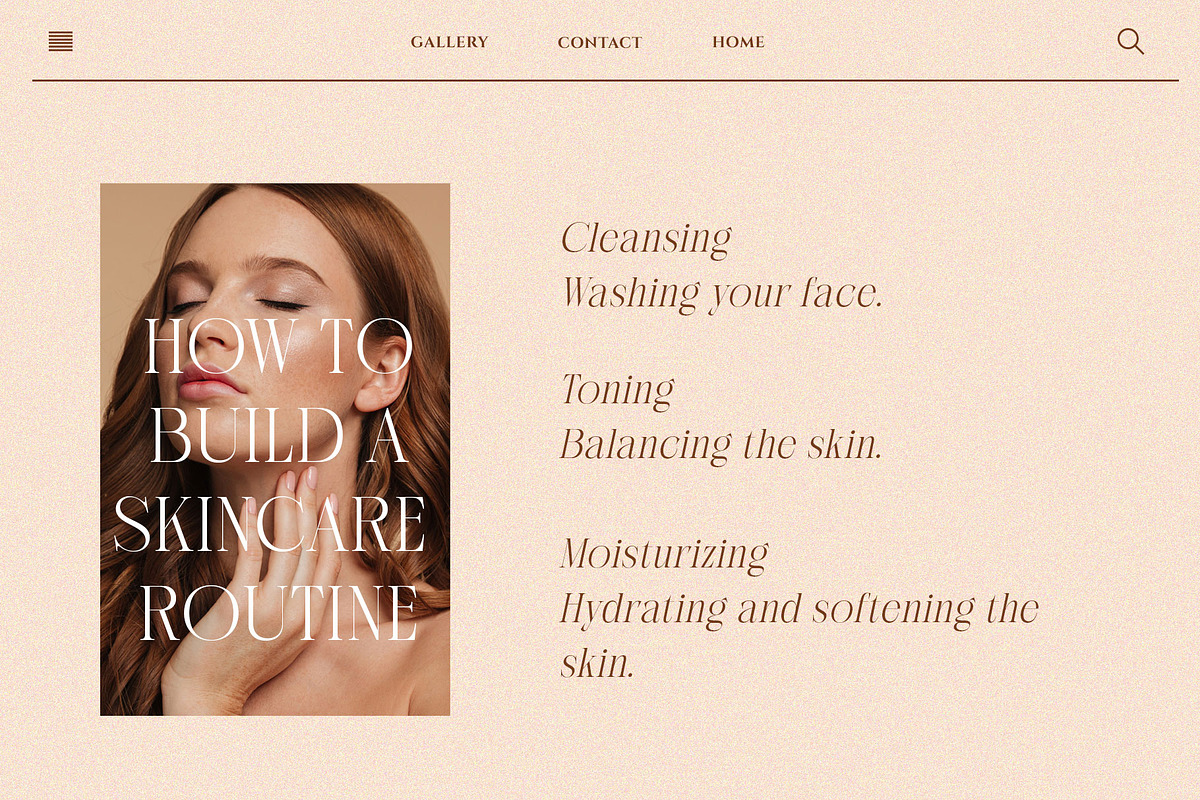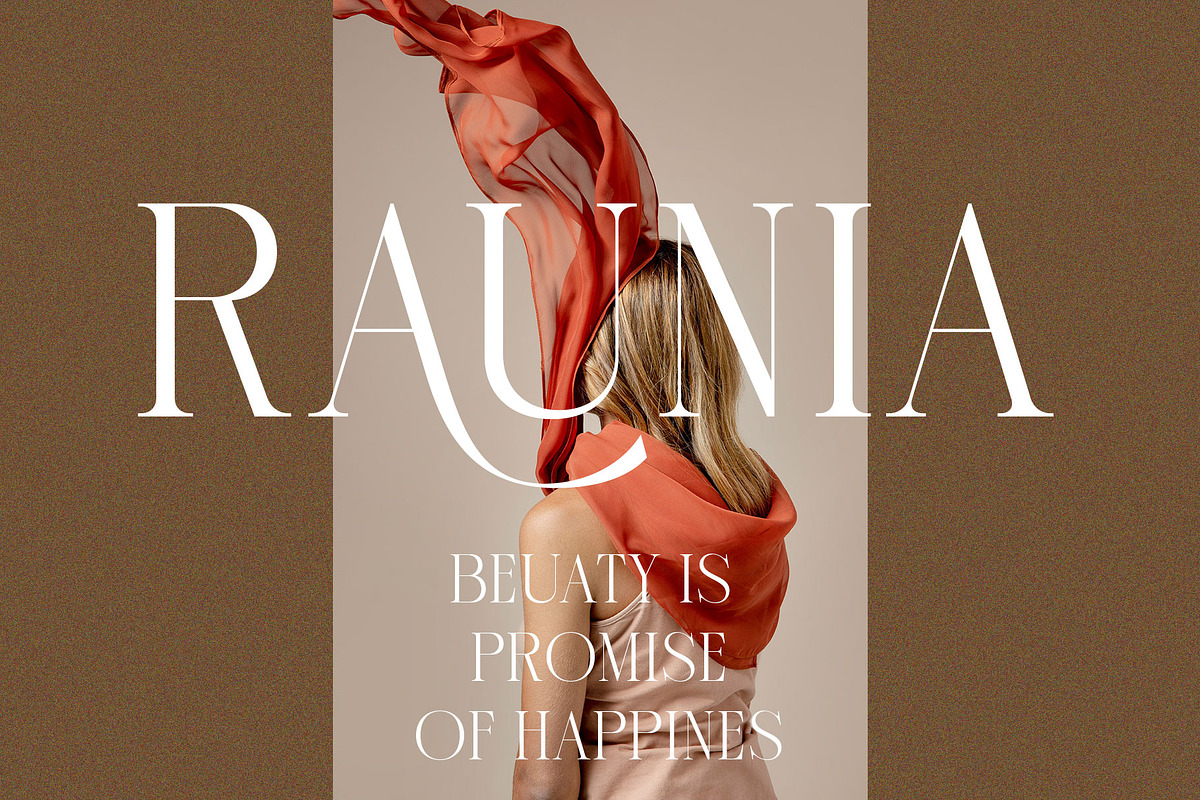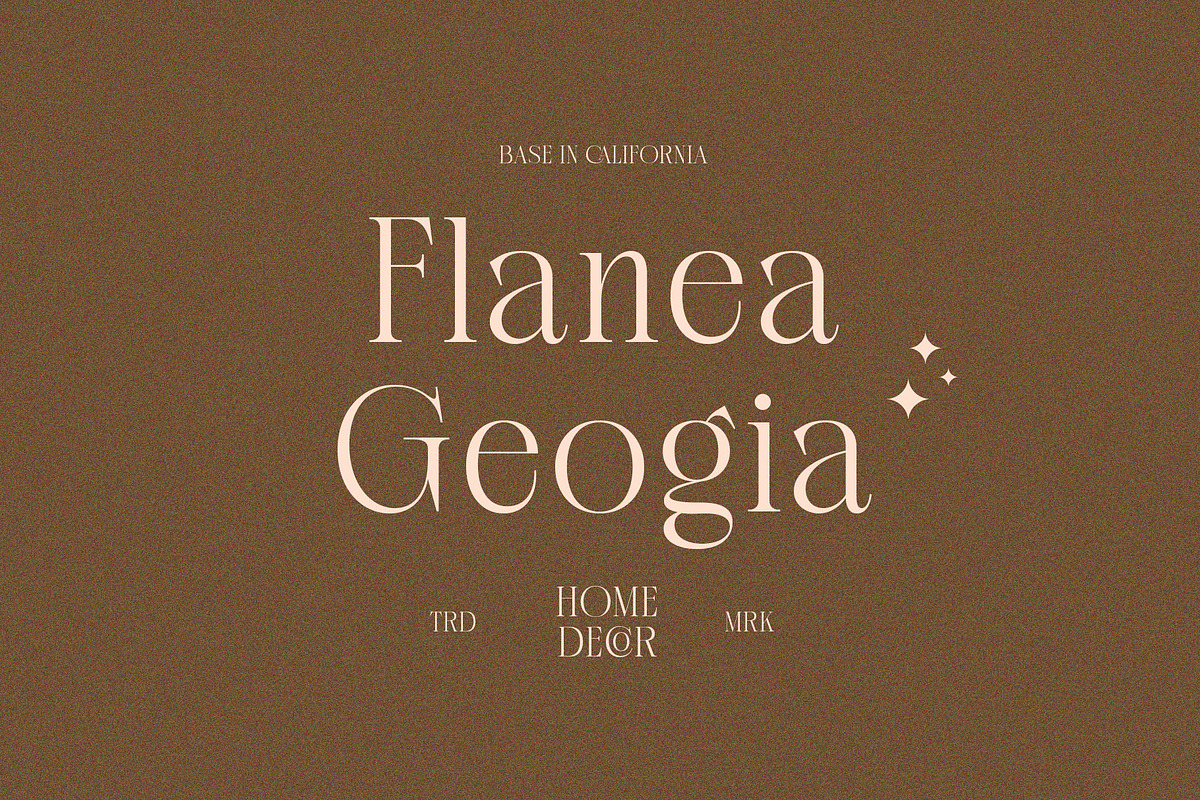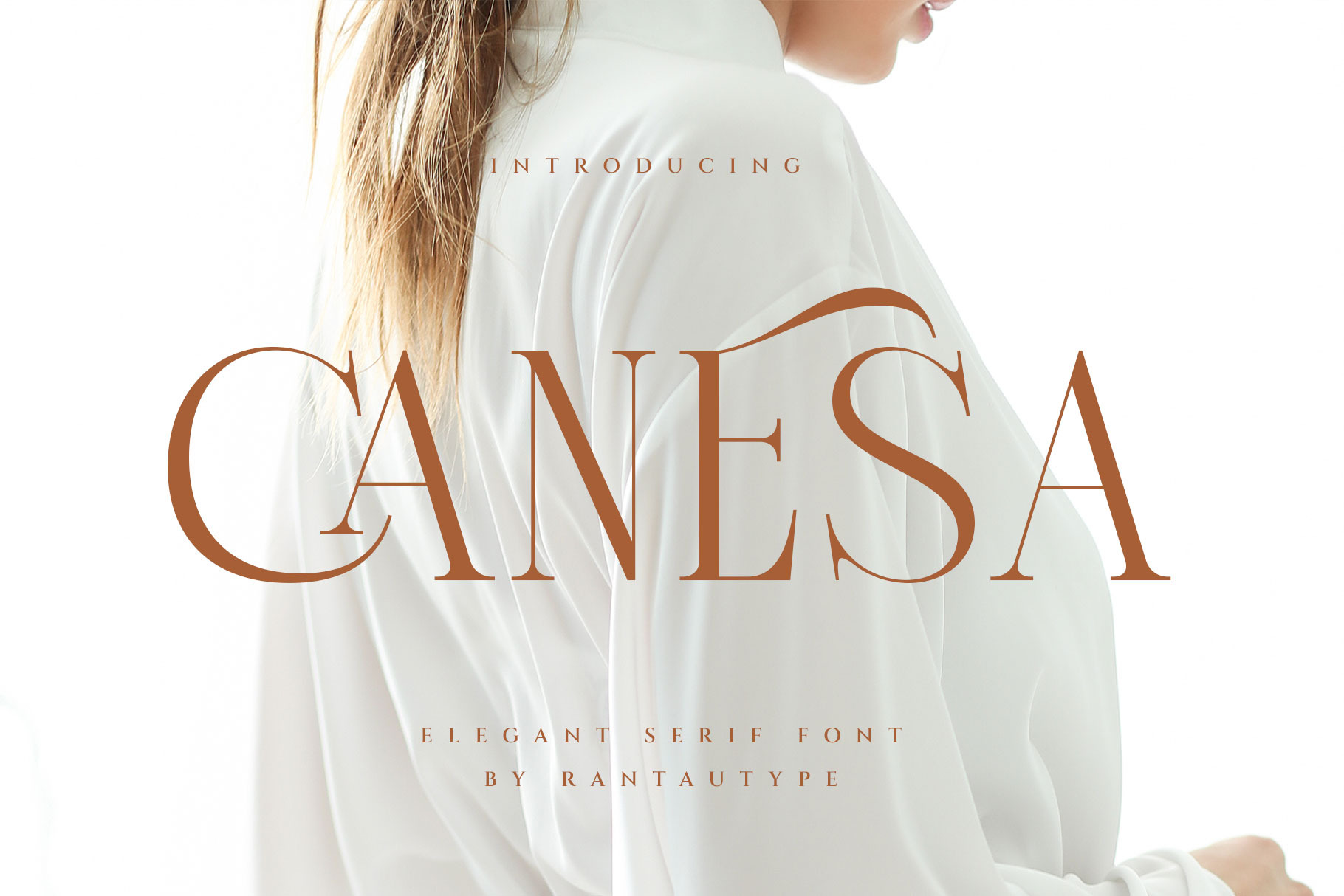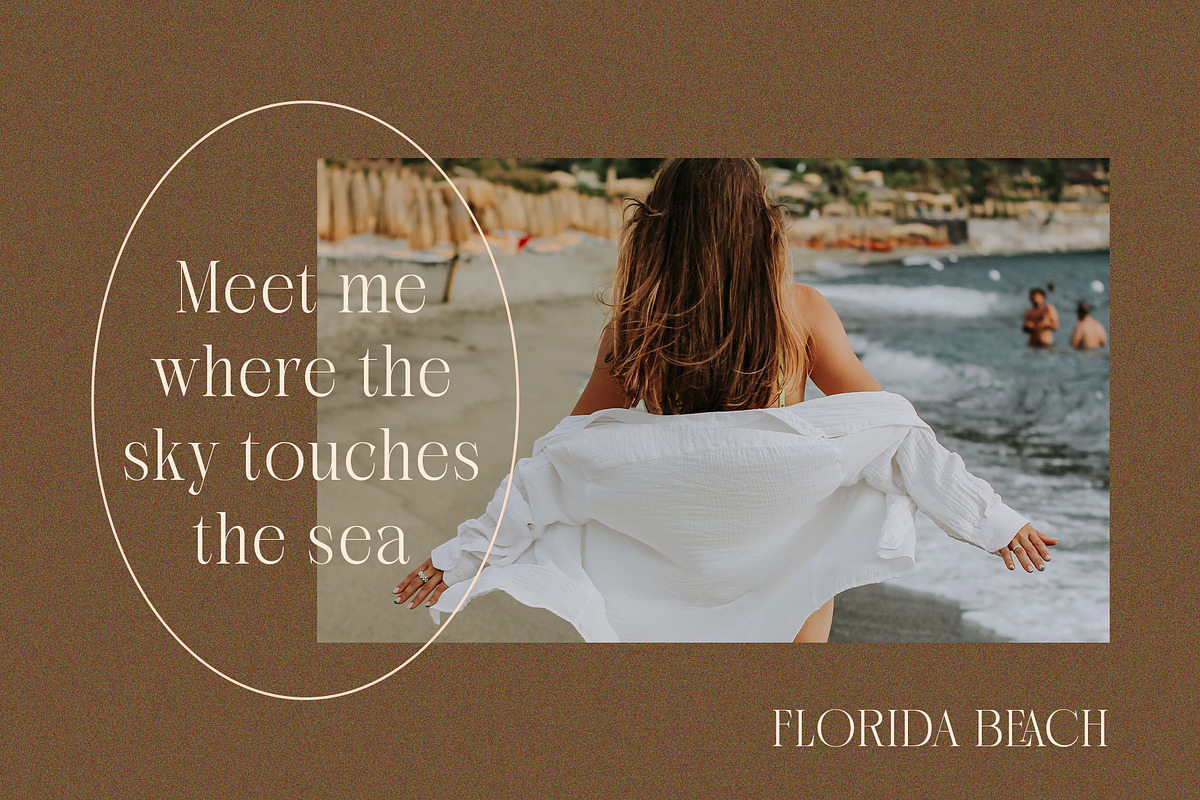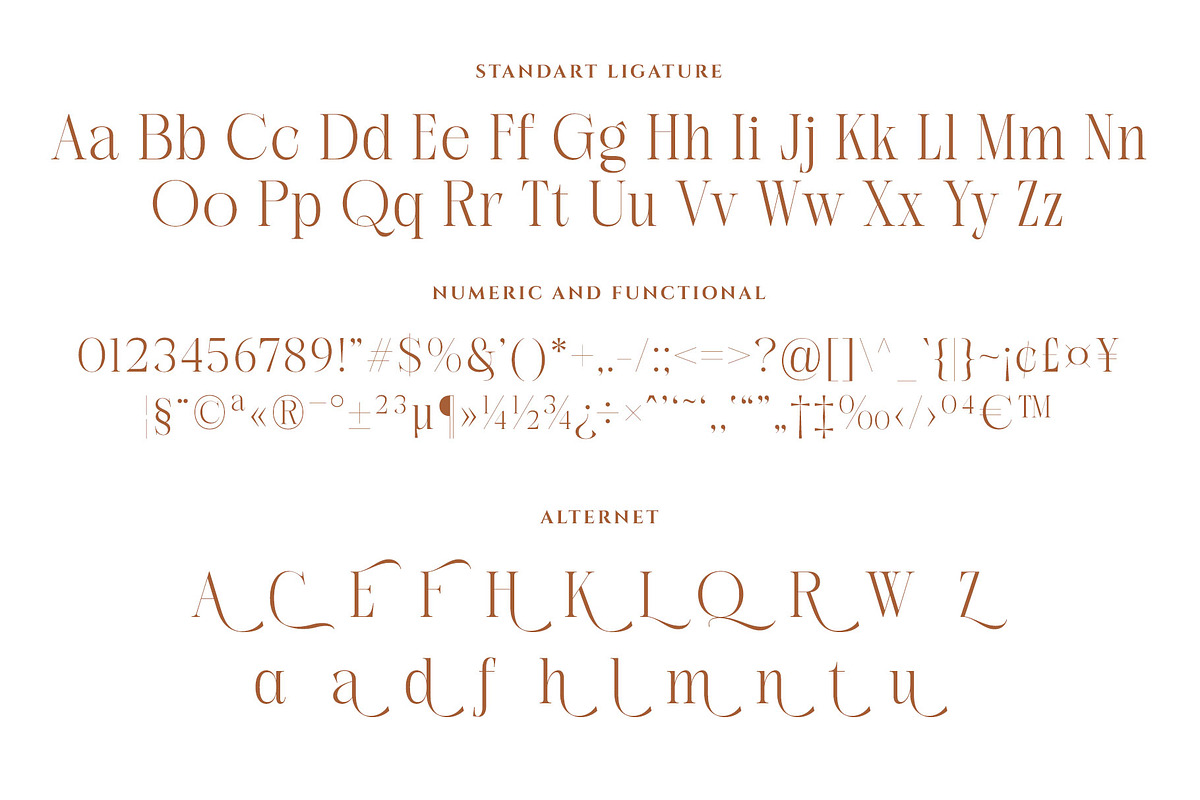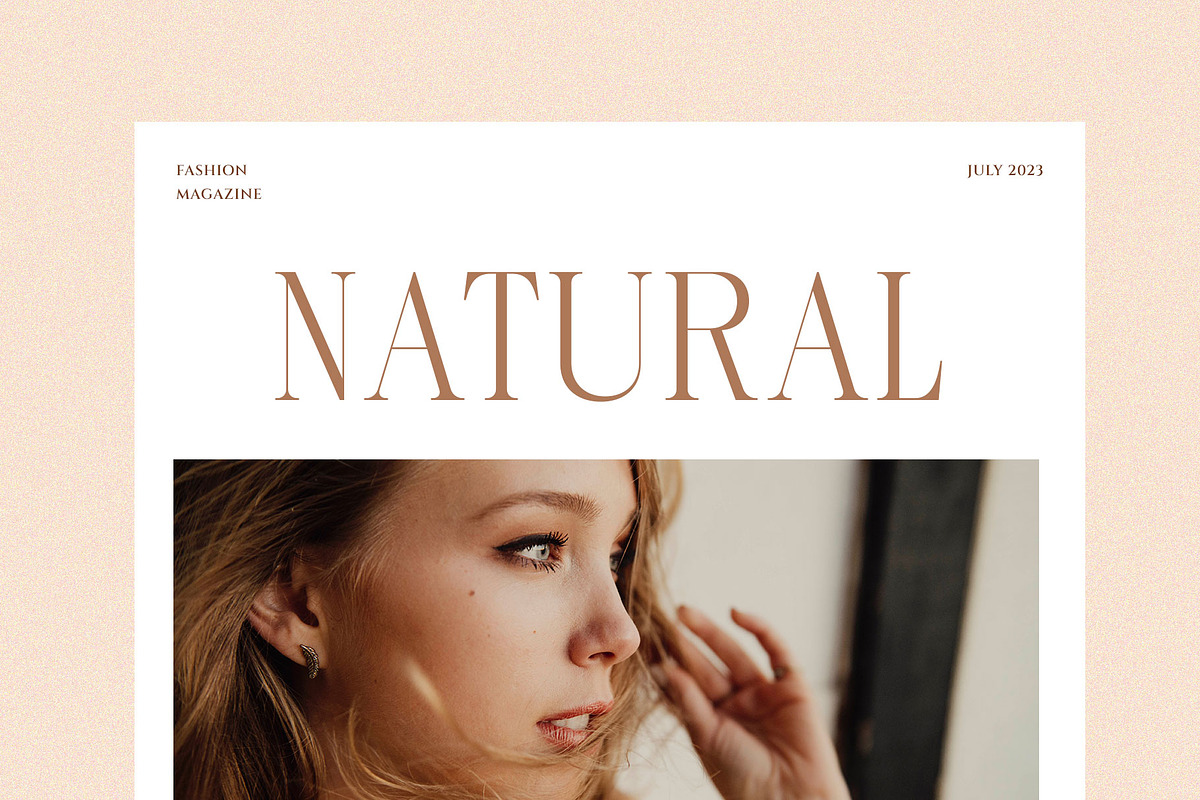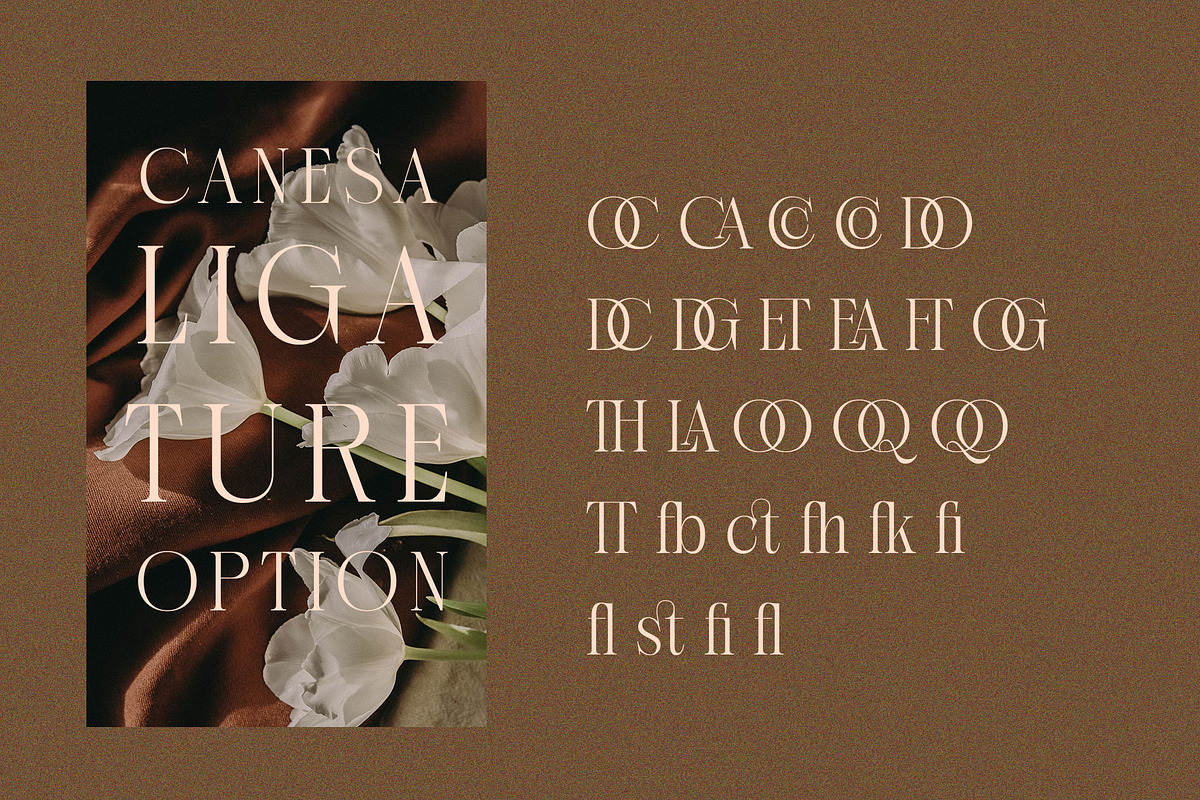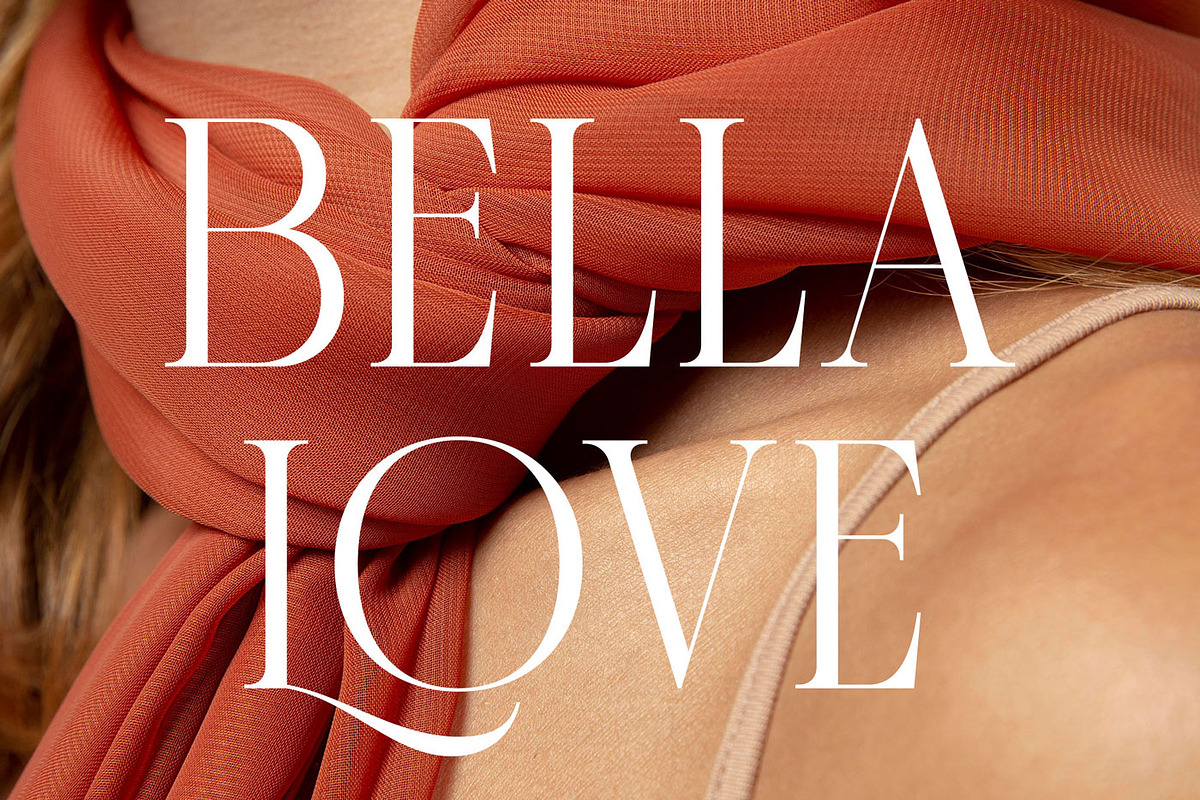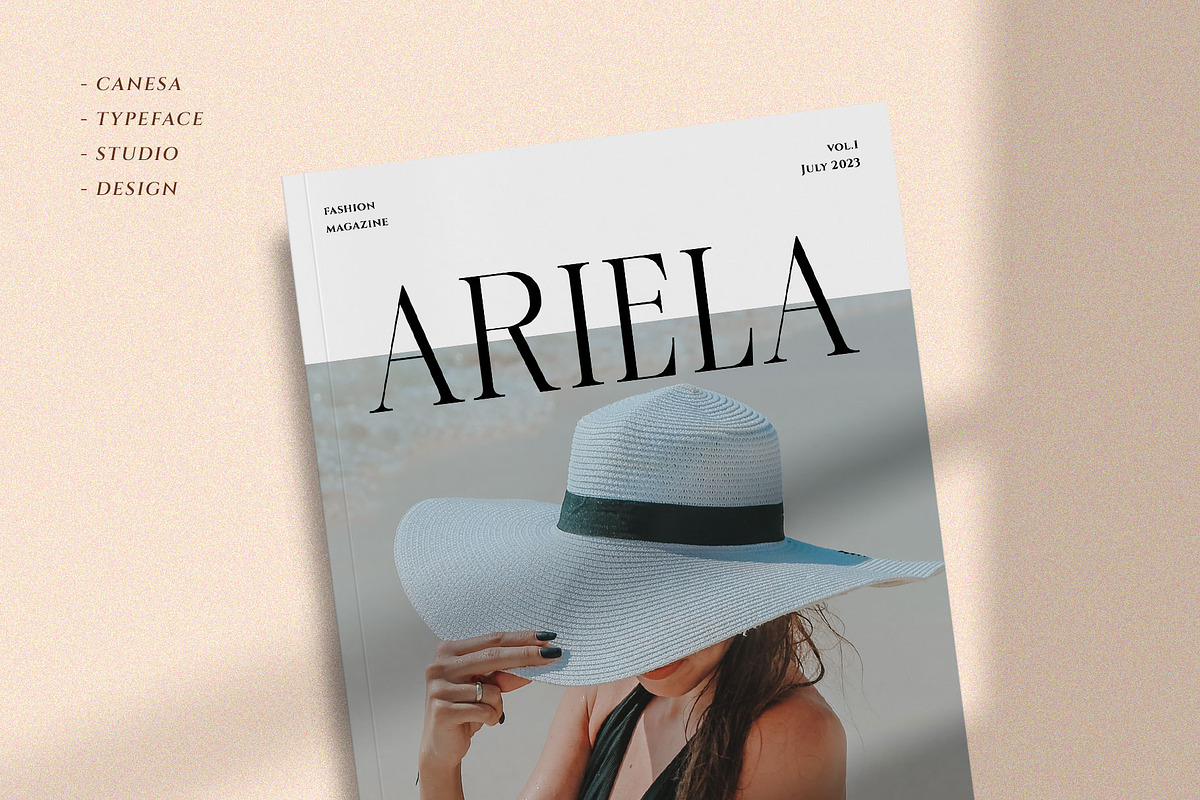
Canesa A Elegant Serif Font
Canesa - a elegant display serif with Sophisticated shape. We love how tall it look elegant and professional. We keep this font looks fashionable, elegant, luxury, premium, modern, catchy and easy to use.
Perfectly suitable for creating elegant, chic, lifestyle design such as logos, title, cover, branding, display and magazine, and more. Now you have more choice when using Canesa for typography.
- Standar character A-Z and a-z
- Alternate and ligature
- International Multilinggual Support